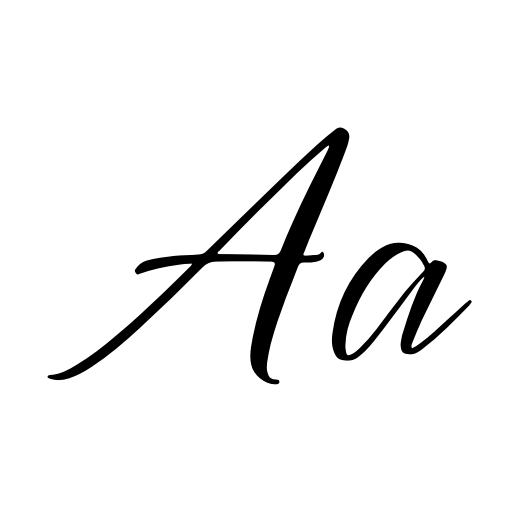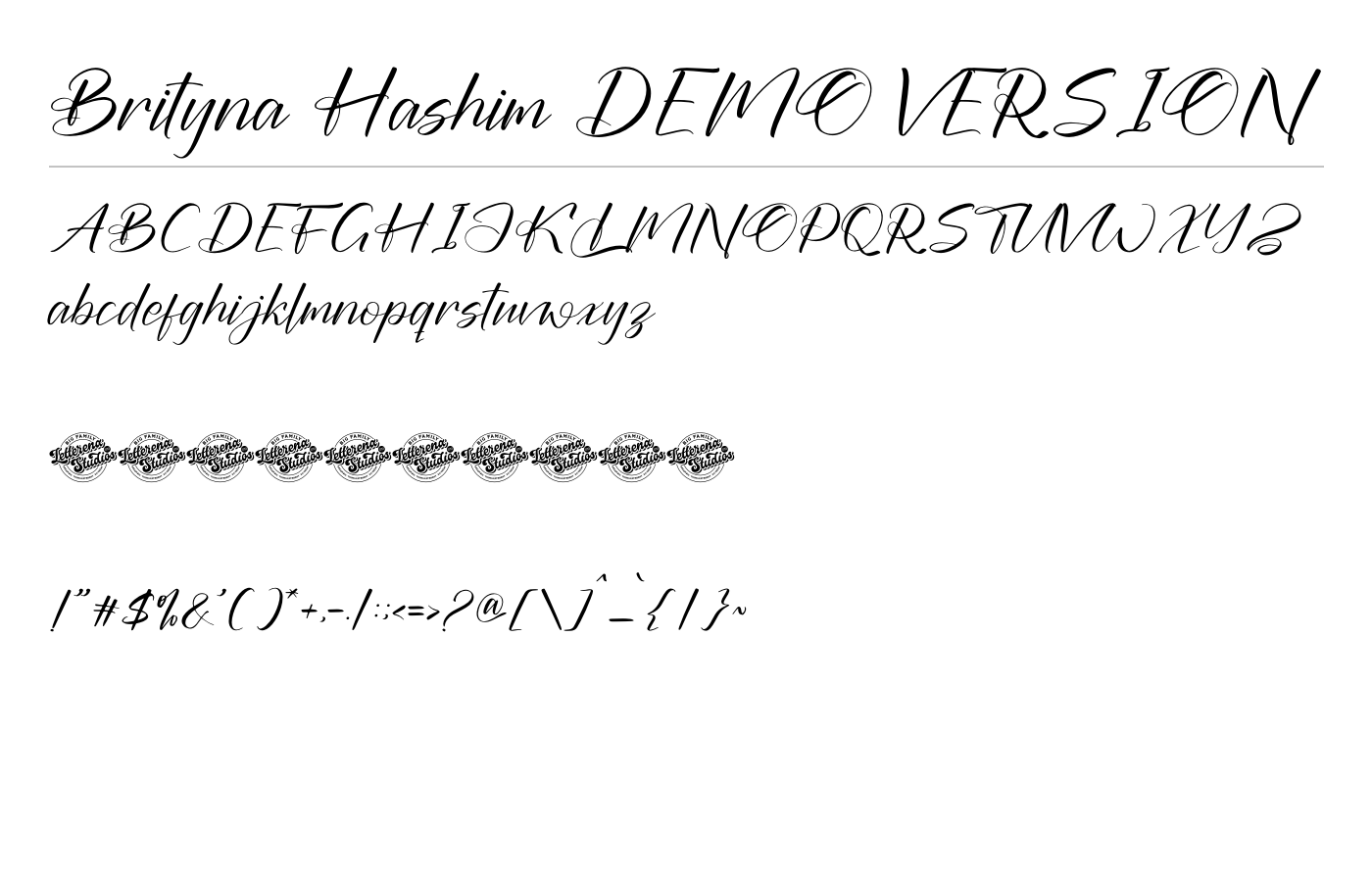
Brityna Hashim DEMO VERSION is an elegant handwritten script font with delicate, flowing strokes and a graceful, slightly condensed feel. Its fine lines and calligraphic style convey a sophisticated and personal touch, making it ideal for invitations, branding, and editorial designs that seek a refined yet approachable look. This font shines in projects that require a blend of elegance and warmth, especially where a natural, artistic flair is desired.
Brityna Hashim DEMO VERSION Font
About Brityna Hashim DEMO VERSION Font
| Font family | Brityna Hashim DEMO VERSION Font |